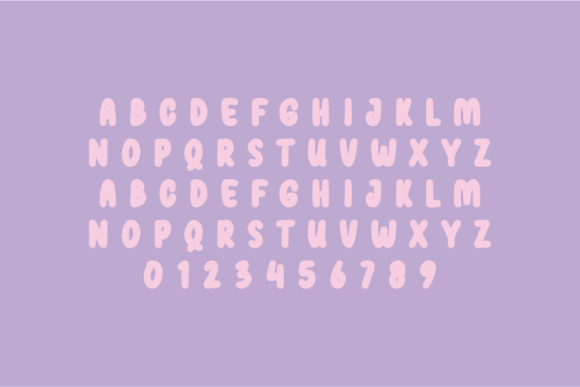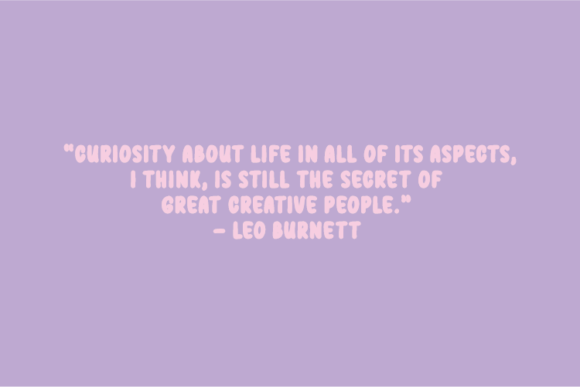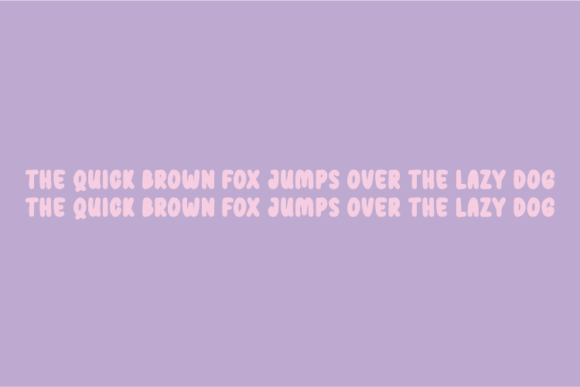
Candyland Font: The Sweetest Addition to Your Design Collection
Are you a designer or crafter looking for a font that can add a touch of whimsy and playfulness to your projects? Look no further than the Candyland Font! This adaptable and clean handwritten font is perfect for a wide range of designs, from sweet treats to playful party invitations. In this article, we’ll dive into the world of Candyland Font and explore its unique features, uses, and benefits.
What is Candyland Font?
Candyland Font is a beautiful, handwritten font that boasts a natural and unique style. Its clean lines and adaptable design make it incredibly fitting for a large pool of designs. Whether you’re creating a logo, invitation, or social media graphic, Candyland Font is the perfect choice. The font’s versatility is limitless, and the only limit is your imagination!
Unique Features of Candyland Font
So, what sets Candyland Font apart from other fonts? Here are a few of its unique features:
- Clean and Handwritten Design: Candyland Font has a clean and handwritten design that gives it a personal and friendly feel.
- Adaptable: This font is incredibly adaptable and can be used in a wide range of designs, from playful to elegant.
- Unique Style: Candyland Font has a natural and unique style that makes it stand out from other fonts.
- Easy to Read: Despite its playful design, Candyland Font is easy to read and understand, making it perfect for body text and headings.
Uses of Candyland Font
Candyland Font is perfect for a wide range of designs, including:
- Party Invitations: Create playful and fun party invitations that will set the tone for your event.
- Logos and Branding: Use Candyland Font to create a unique and memorable logo for your business or brand.
- Social Media Graphics: Add a touch of whimsy to your social media graphics and make them stand out from the crowd.
- Crafting and Scrapbooking: Candyland Font is perfect for crafters and scrapbookers who want to add a personal touch to their projects.
- Wedding and Event Stationery: Use Candyland Font to create beautiful and unique wedding and event stationery.
Benefits of Using Candyland Font
So, why should you choose Candyland Font for your design projects? Here are a few benefits:
- Time-Saving: With Candyland Font, you can create beautiful designs in no time. Its easy-to-read design and adaptable style make it perfect for quick design projects.
- Unique Designs: Candyland Font helps you create unique and memorable designs that will stand out from the crowd.
Tips and Tricks for Using Candyland Font
Here are a few tips and tricks for using Candyland Font:
- Experiment with Colors: Candyland Font looks great in a variety of colors. Experiment with different colors to find the perfect combination for your design.
- Mix and Match Fonts: Don’t be afraid to mix and match Candyland Font with other fonts to create a unique and interesting design.
- Use it for Headings and Body Text: Candyland Font is perfect for both headings and body text. Use it to create a cohesive and easy-to-read design.